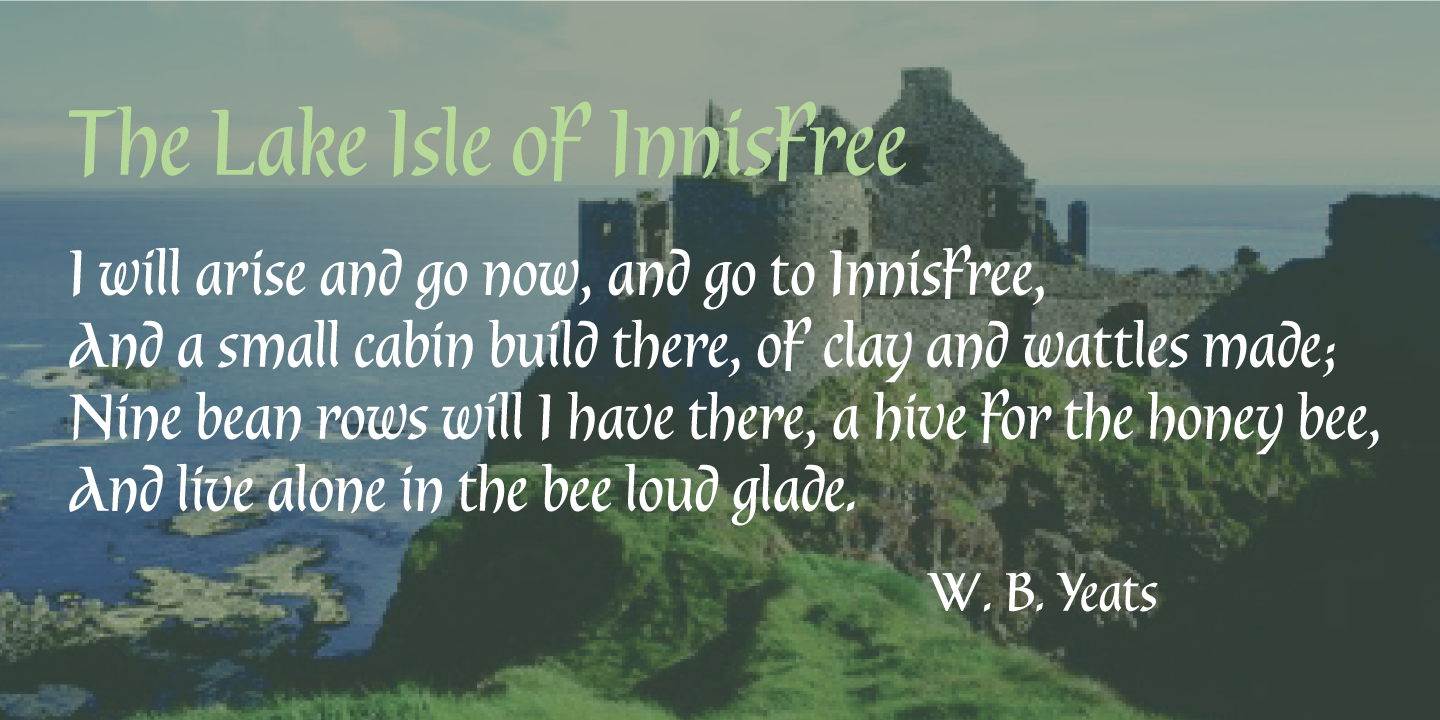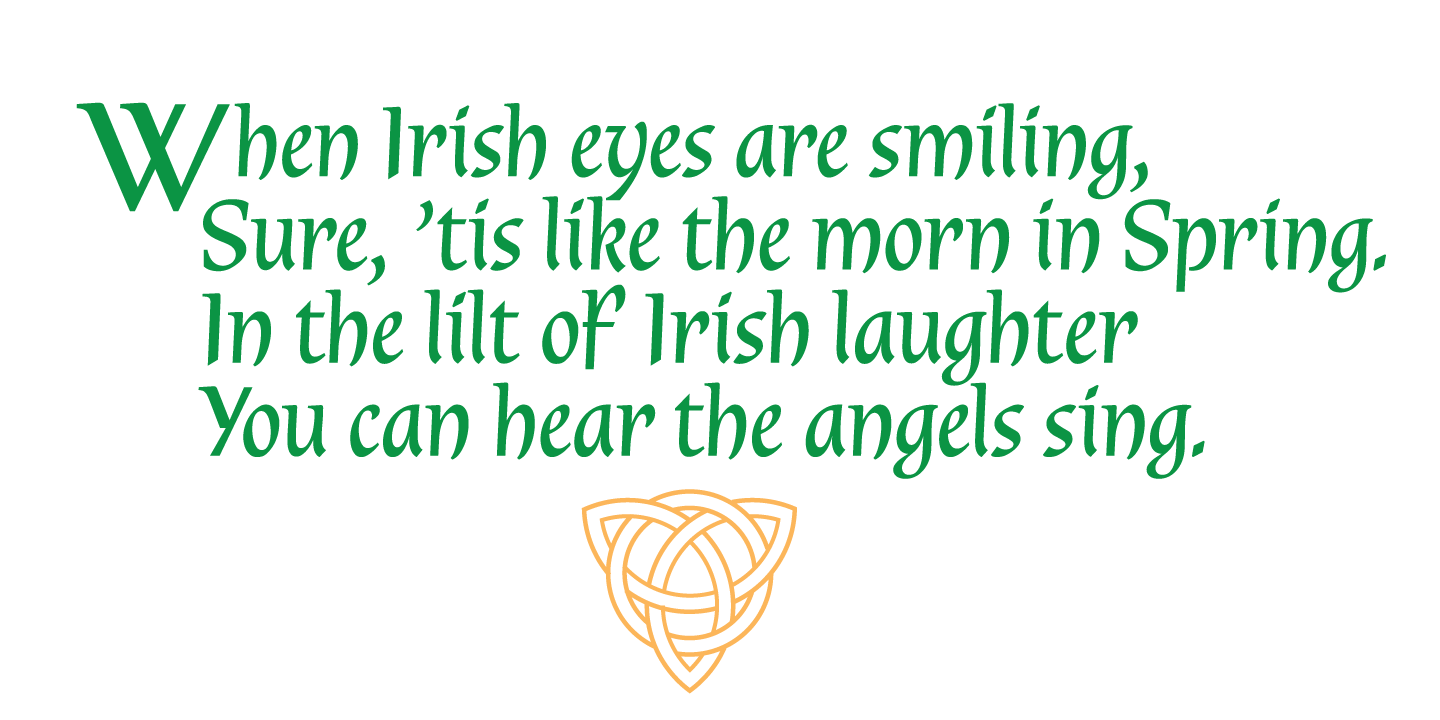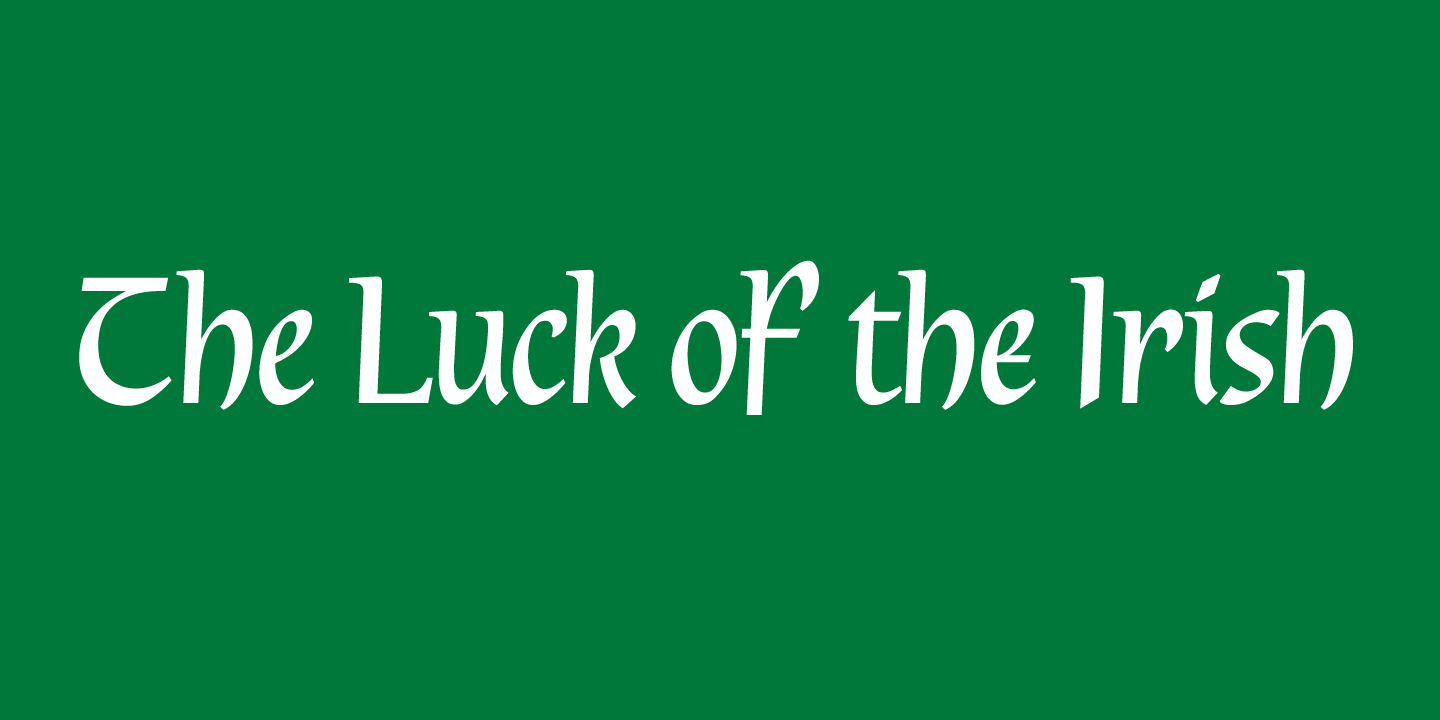
Dublin Font: A Timeless Classic with a Celtic Twist
For designers and crafters looking for a unique and distinctive font to add a touch of elegance and sophistication to their projects, the Dublin Font is an excellent choice. This beautiful font is inspired by the classic Celtic style of lettering, with an alternative set of capitals and a few alternative lower case letters, making it a versatile and creative option for a wide range of applications.
The Origins of Dublin Font
The Dublin Font is rooted in the rich tradition of Celtic lettering, which dates back to the early Christian period in Ireland. The Celts were renowned for their intricate and ornate designs, which often featured interlacing patterns and knotwork. The Dublin Font draws on this heritage, incorporating elements of Celtic art and design into its unique and distinctive letterforms.
Classic Celtic Style with a Modern Twist
The Dublin Font features a classic Celtic style of lettering, with intricate and ornate details that evoke the ancient manuscripts and illuminated texts of Ireland’s rich literary heritage. However, what sets this font apart is its alternative set of capitals and a few alternative lower case letters, which offer a fresh and modern take on traditional Celtic lettering.
Key Features of Dublin Font
- Classic Celtic style of lettering: The Dublin Font features a traditional Celtic style of lettering, with intricate and ornate details that evoke the ancient manuscripts and illuminated texts of Ireland’s rich literary heritage.
- Alternative set of capitals: The font includes an alternative set of capitals, which offer a fresh and modern take on traditional Celtic lettering.
- Alternative lower case letters: In addition to the alternative capitals, the font also includes a few alternative lower case letters, which provide even more creative options for designers and crafters.
- Versatile and creative: The Dublin Font is a versatile and creative option for a wide range of applications, from graphic design and branding to crafting and DIY projects.
Uses for Dublin Font
The Dublin Font is a versatile and creative option for a wide range of applications, including:
- Graphic design and branding: The font’s unique and distinctive letterforms make it an excellent choice for graphic design and branding projects, such as logos, business cards, and letterheads.
- Crafting and DIY projects: The font’s classic Celtic style and intricate details make it a great choice for crafting and DIY projects, such as hand lettering, calligraphy, and paper crafting.
- Sign making and display lettering: The font’s bold and ornate letterforms make it an excellent choice for sign making and display lettering projects.
Tips for Using Dublin Font
Here are a few tips for using the Dublin Font in your projects:
- Experiment with different sizes and styles: The Dublin Font looks great in a variety of sizes and styles, so don’t be afraid to experiment and find the perfect look for your project.
- Mix and match with other fonts: The font’s unique and distinctive letterforms make it a great choice for pairing with other fonts, so try mixing and matching to create a unique and eye-catching look.
- Pay attention to kerning and spacing: As with any font, pay attention to kerning and spacing to ensure that your text looks professional and polished.
| Author | Alan Meeks |
The Dublin Font is a timeless classic with a Celtic twist, offering a unique and distinctive take on traditional lettering. With its alternative set of capitals and a few alternative lower case letters, this font is a versatile and creative option for designers and crafters looking to add a touch of elegance and sophistication to their projects. Whether you’re working on a graphic design project, a crafting or DIY project, or simply looking for a beautiful font to use in your everyday work, the Dublin Font is an excellent choice.